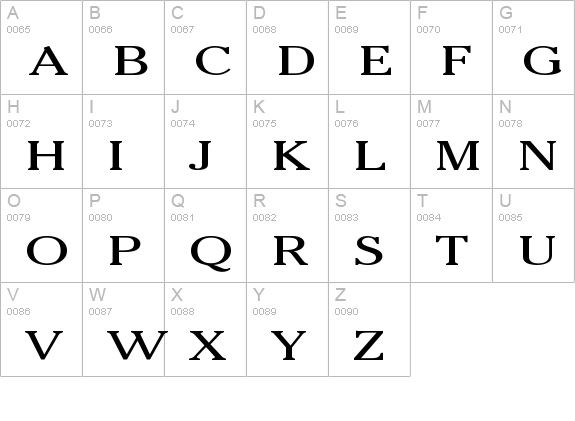
Chelsey Extended Normal is the standard, neutral, extended-width variant in the Chelsey typeface family \xE2\x80\x94 well suited to general body text, paragraphs, and standard typographic work.
Chelsey Extended Normal font is a versatile and modern typeface that exudes elegance and sophistication. With its clean lines and balanced proportions, this font is perfect for a wide range of design projects, from branding to editorial design. The extended version adds a touch of uniqueness and flair, making it stand out from the crowd. What makes Chelsey Extended Normal font even more appealing is that it is available for free download at FontsMarket.com. This means you can access this stunning font without any cost, making it a valuable addition to your font library. Whether you're working on a personal project or a client's design, Chelsey Extended Normal font is sure to elevate your work to the next level. Download it today and see the difference it can make in your designs!